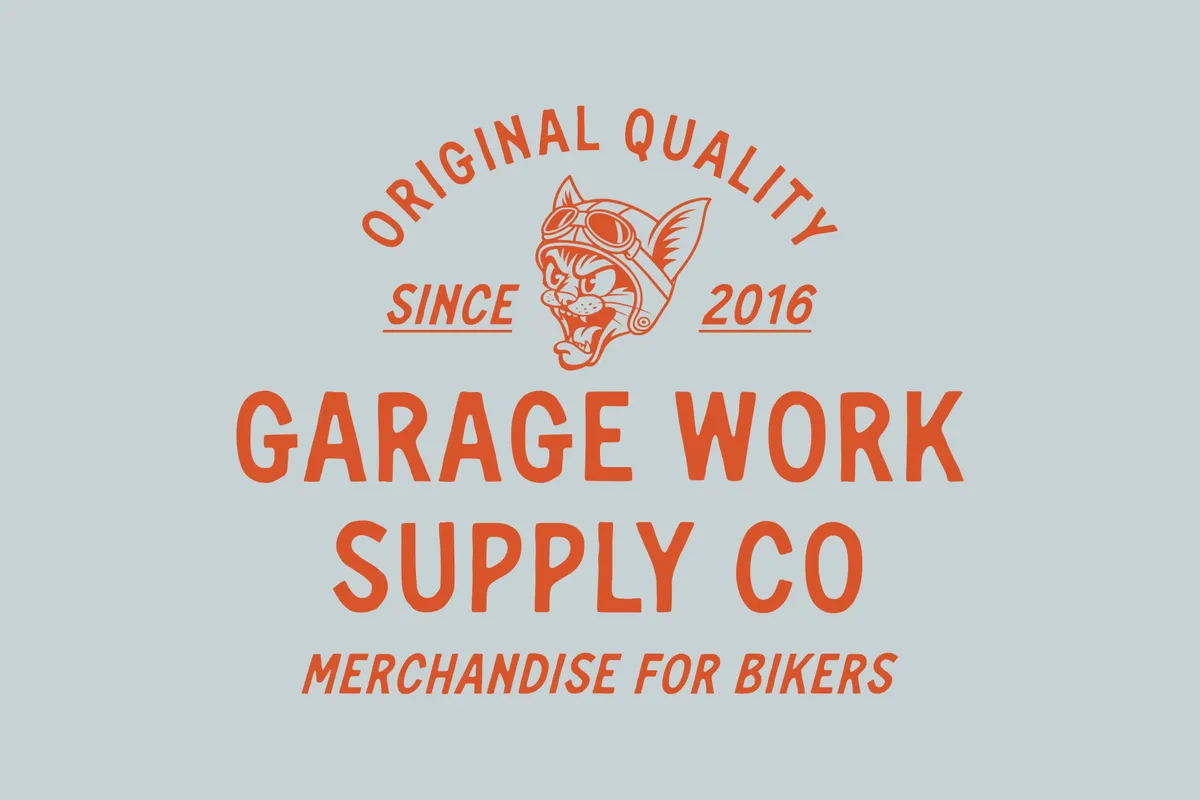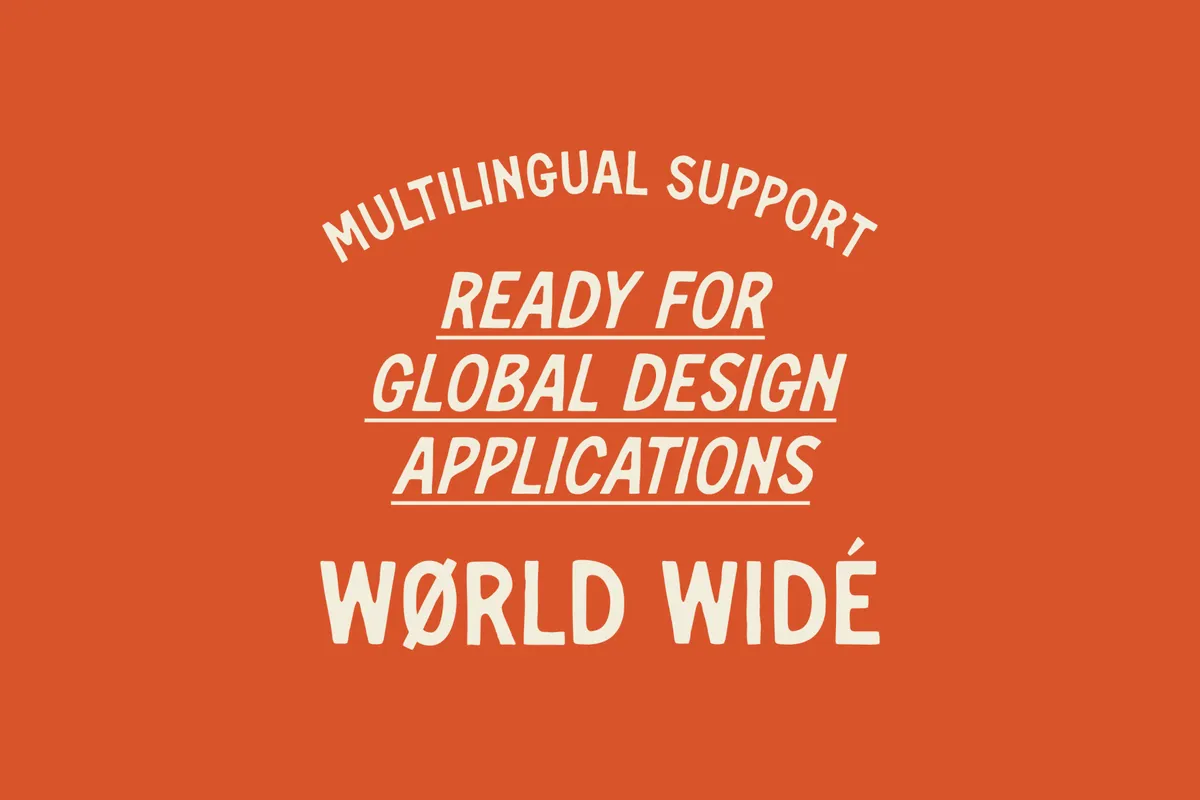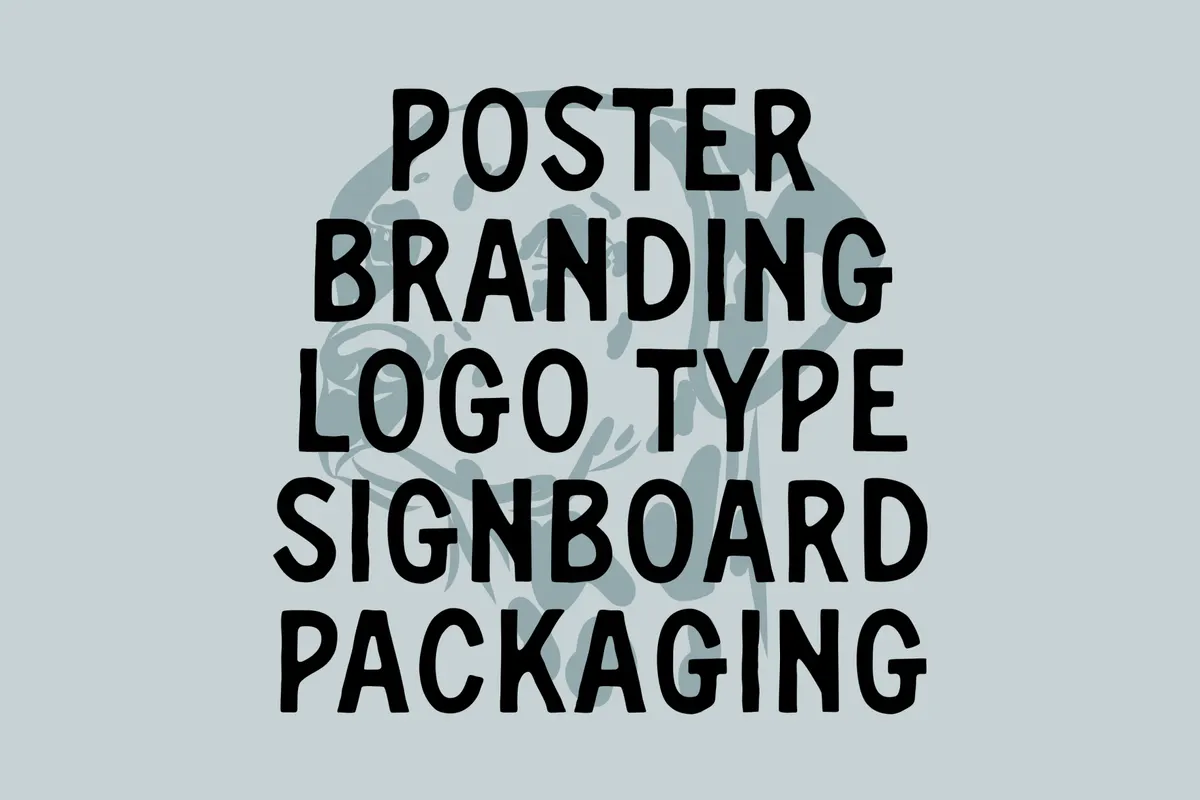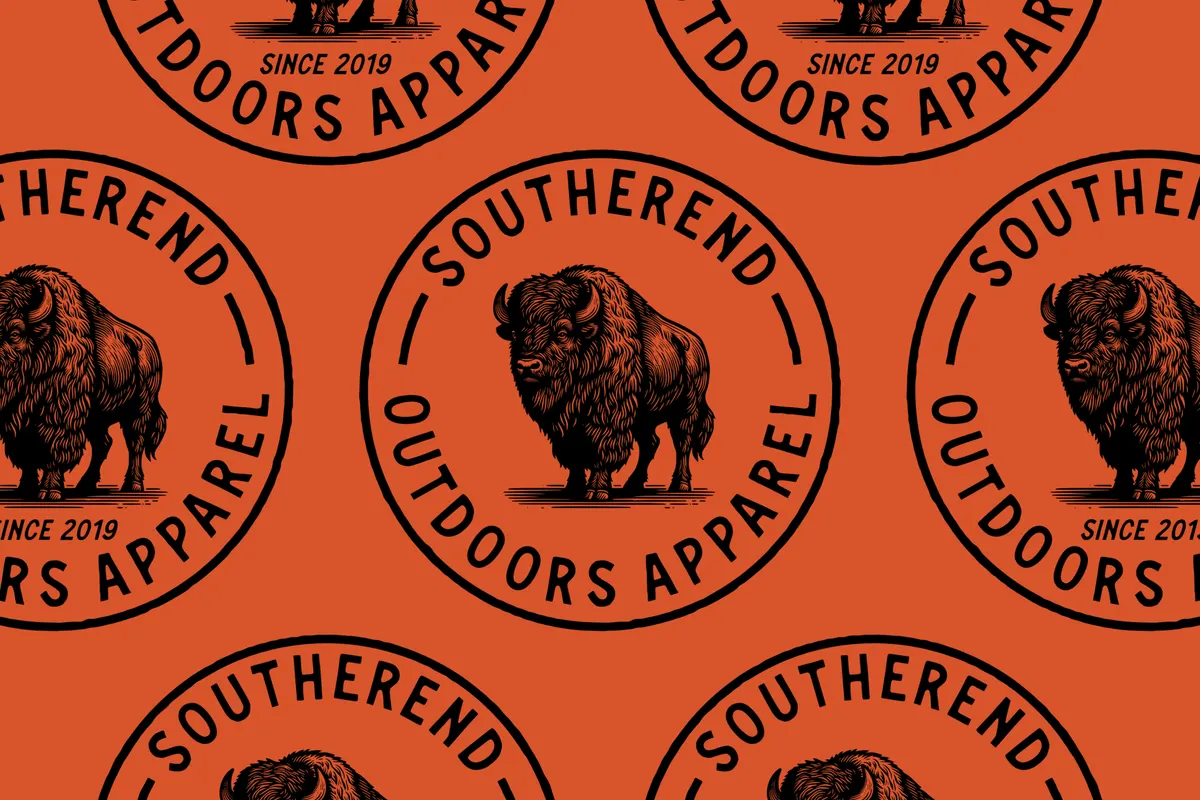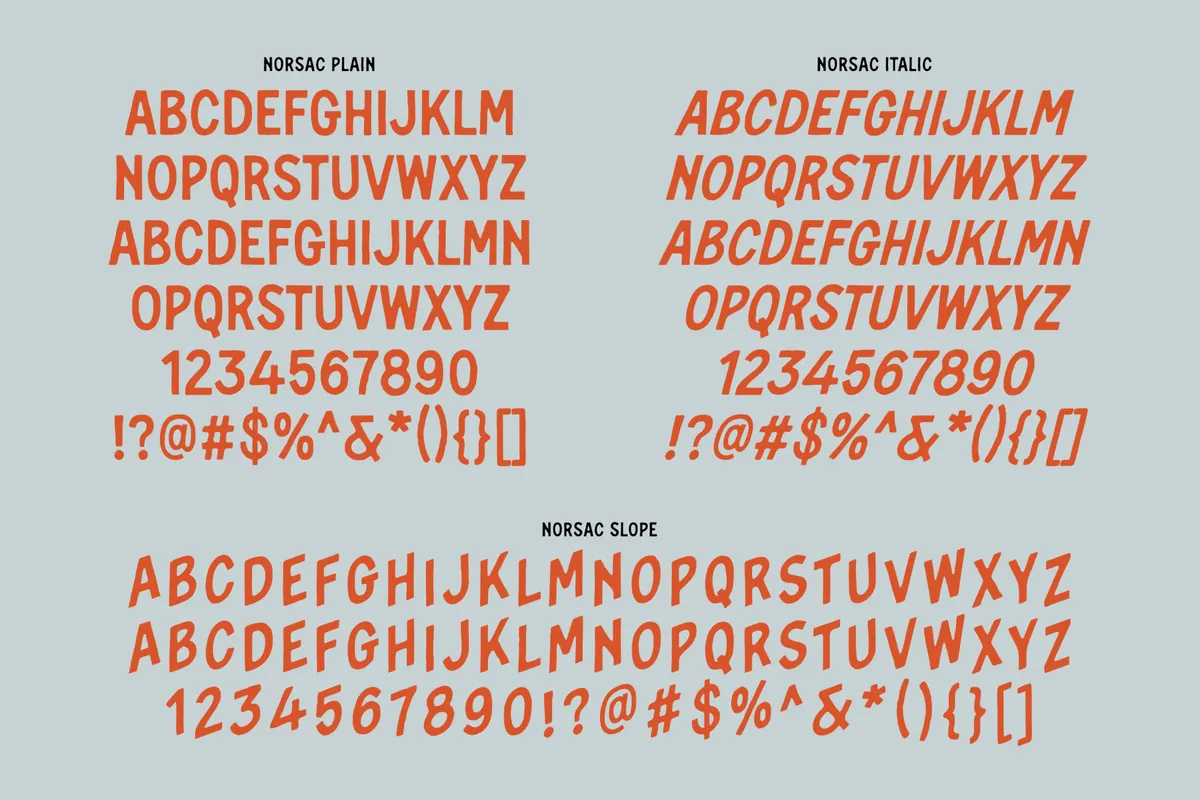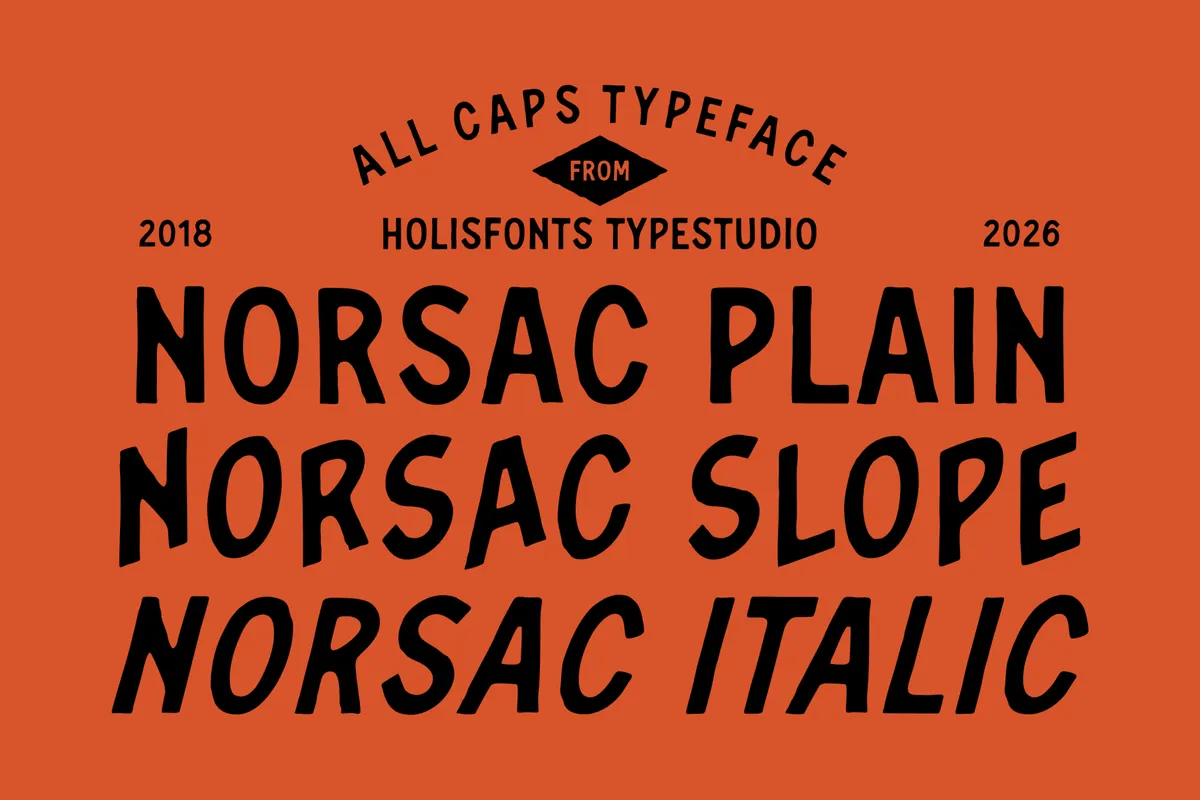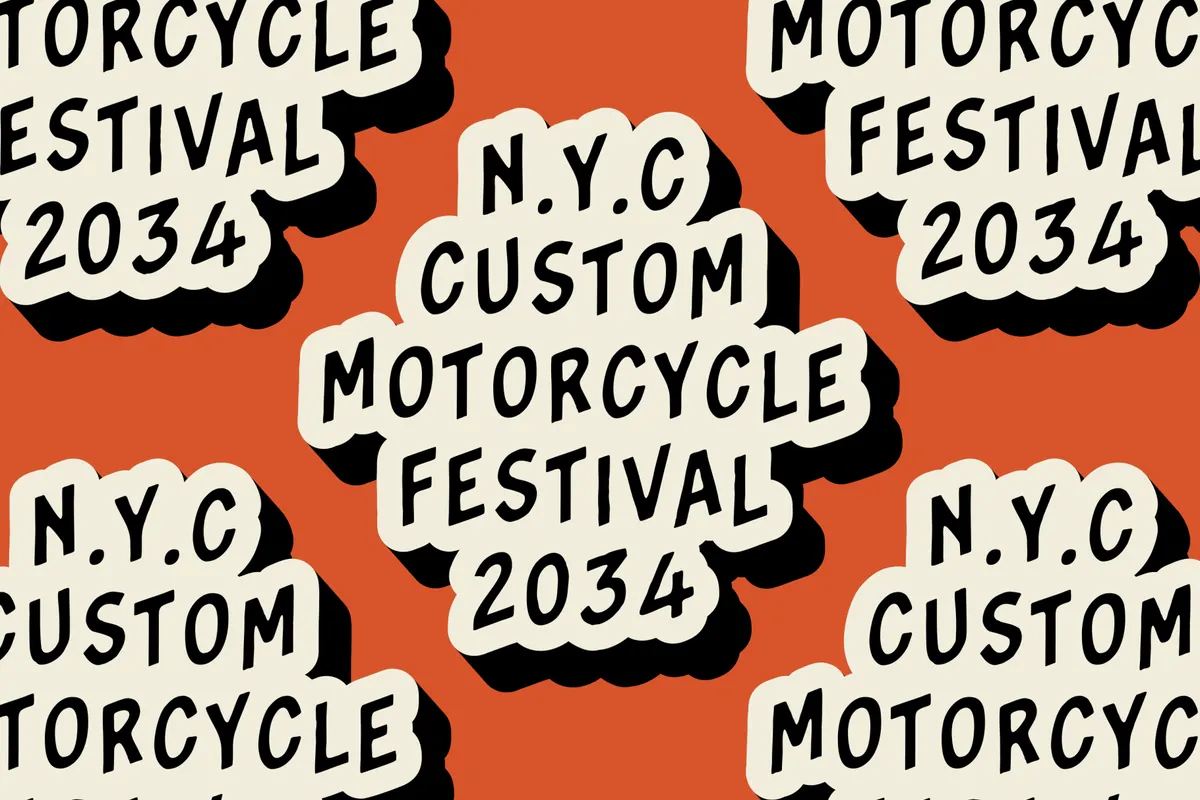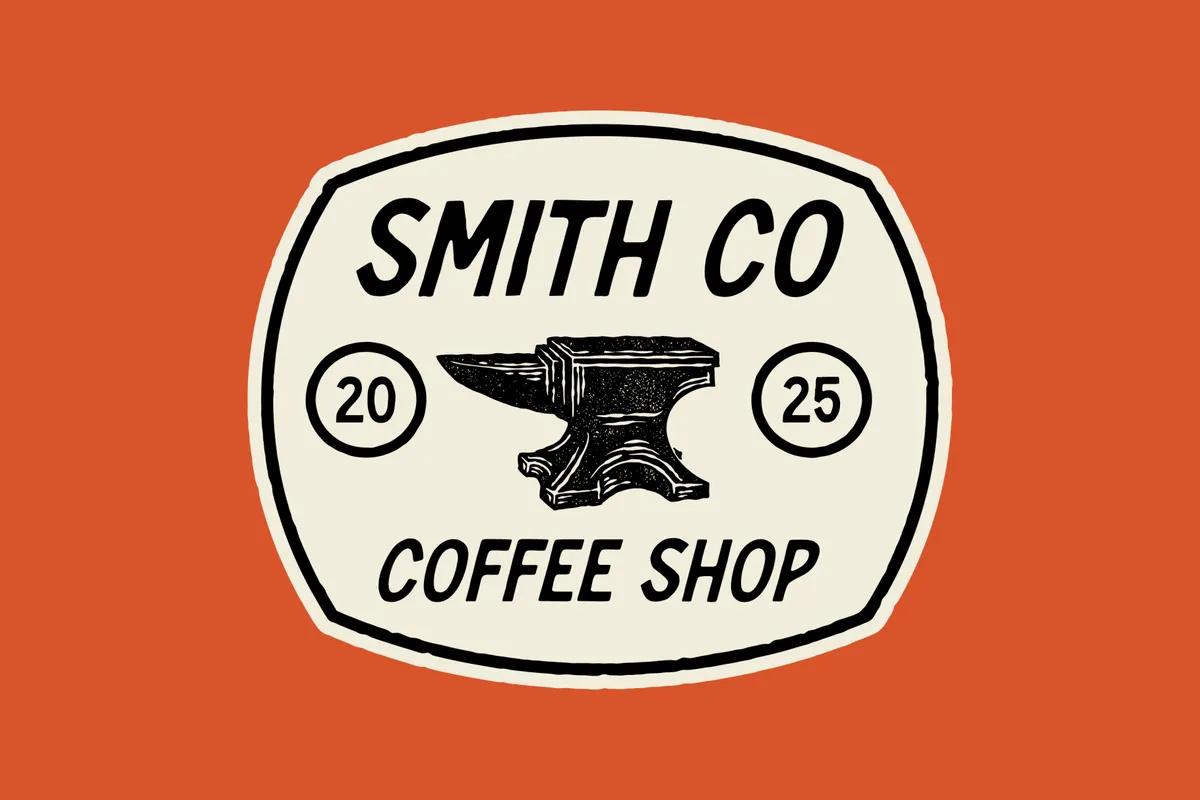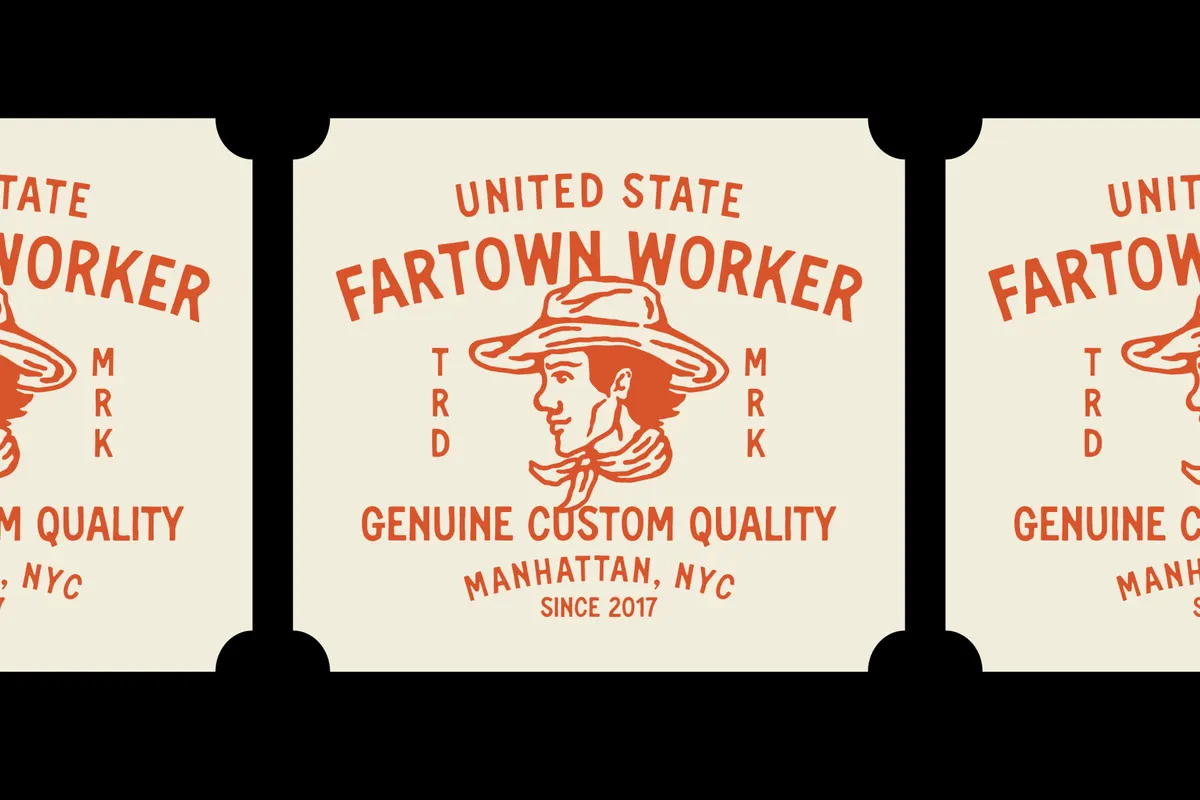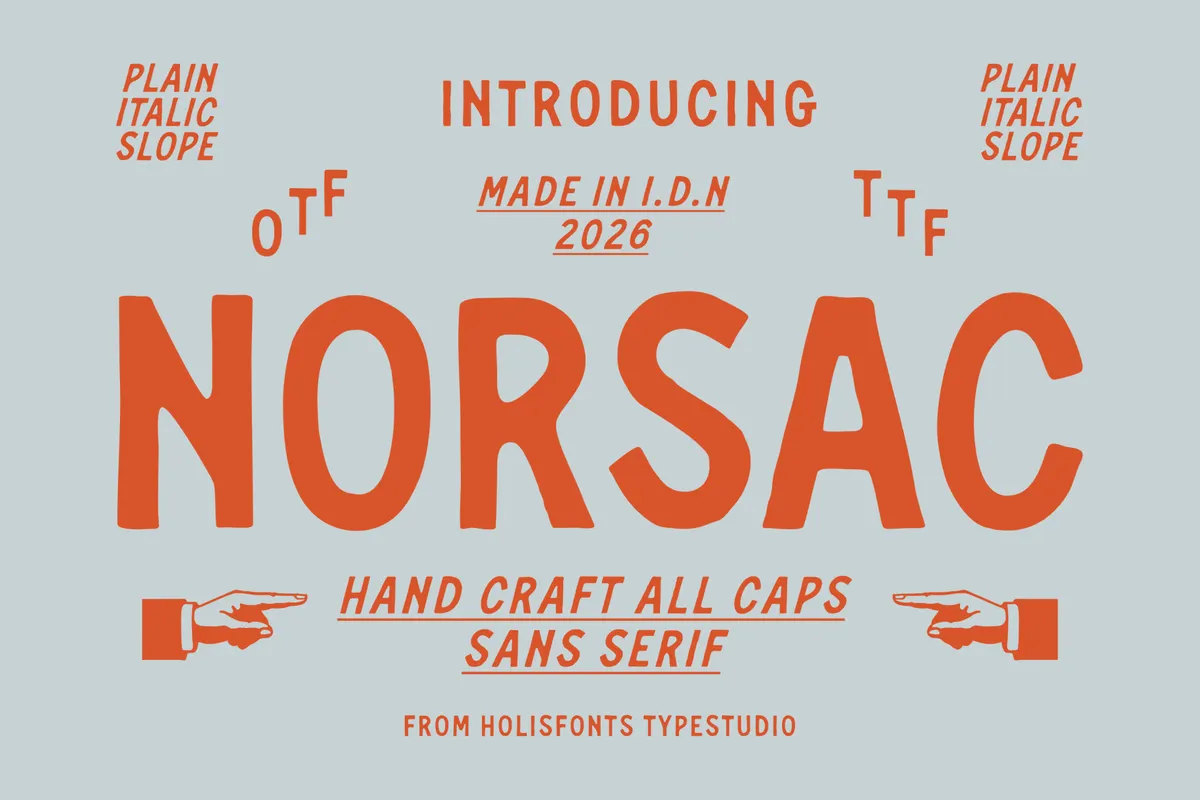
Norsac - Vintage Workwear Caps Font
Norsac is a hand-drawn all caps font in the register of old workwear labels, garage signs and feed-store stencils, with uneven stroke edges and caps that wobble slightly off their baseline. The lowercase keys hold a second, separately drawn set of capitals, so mixing cases breaks up repeated letters the way a sign painter would.
Plain, Italic and Slope are three separate drawings, which keeps a badge or label layout inside one family. Use it for apparel tags, coffee shop branding, motorcycle event posters, craft beer labels, garage and workshop signage, merch stickers, and barbershop identities.
- 3 styles: Plain, Italic, Slope;
- all caps, with a second set of capitals on the lowercase keys;
- numerals, punctuation & symbols;
- standard ligatures and fractions;
- Latin-1 Western European;
- 238 glyphs per style.